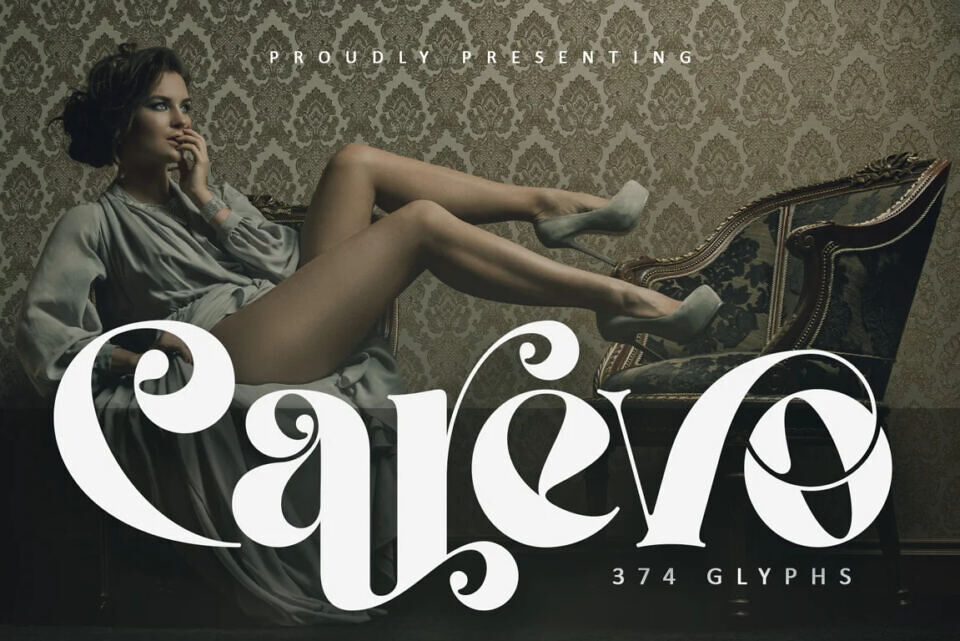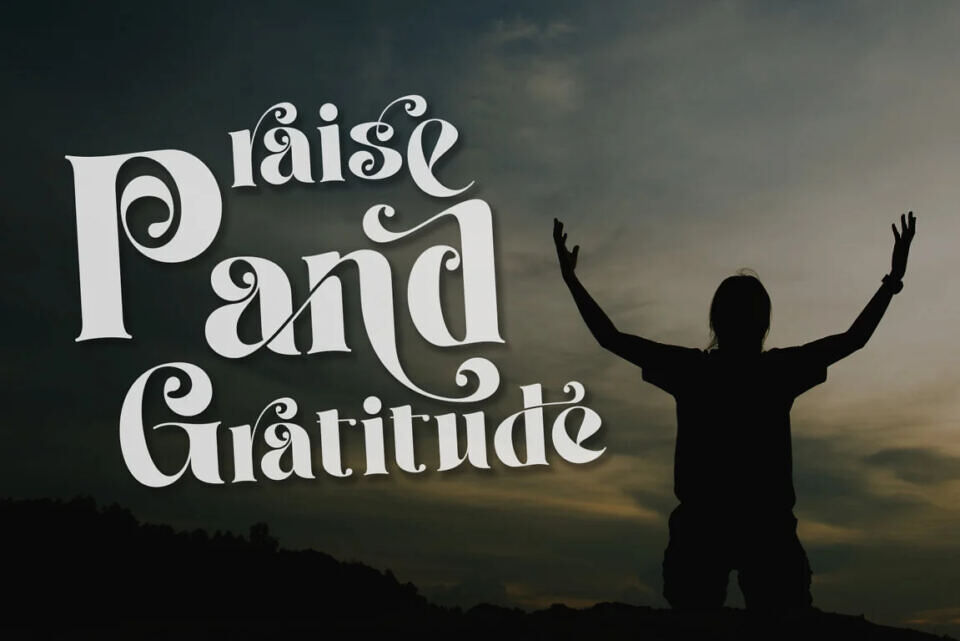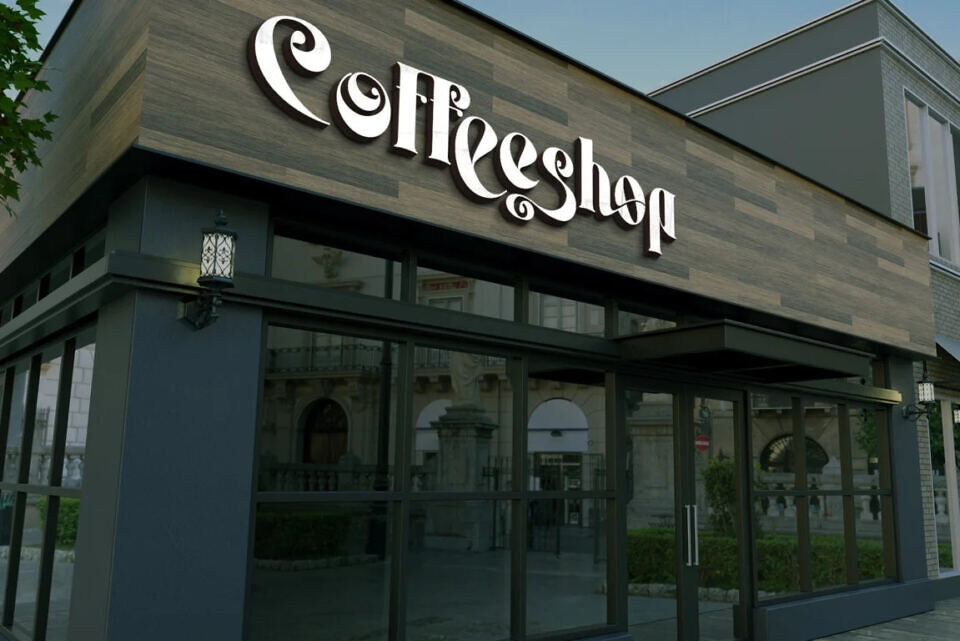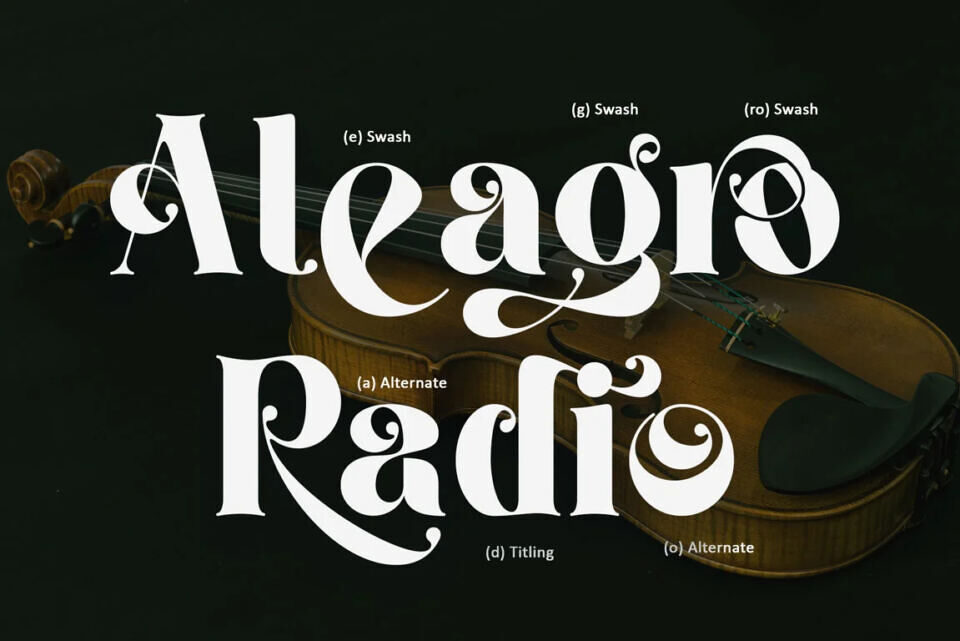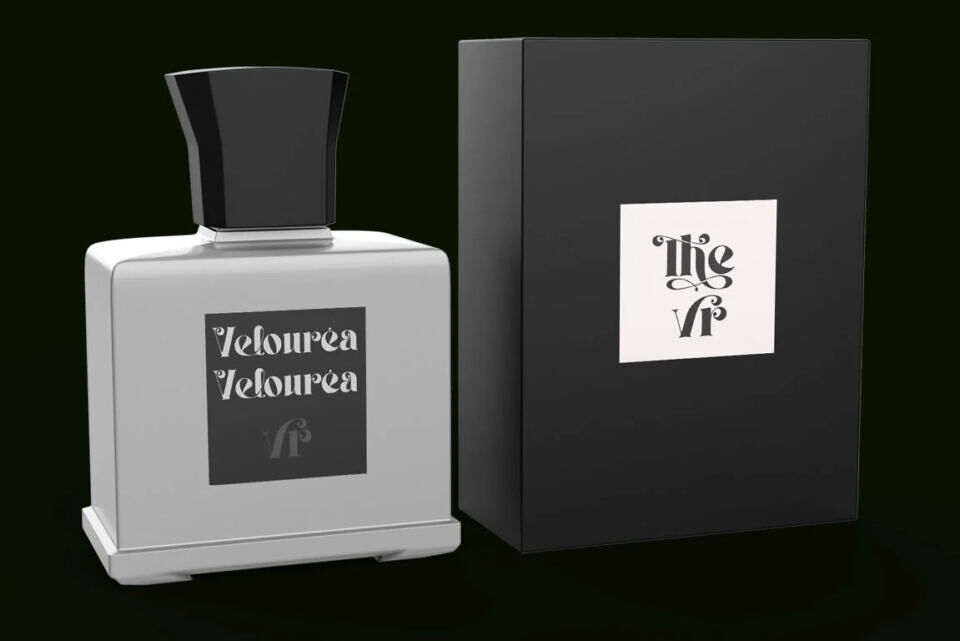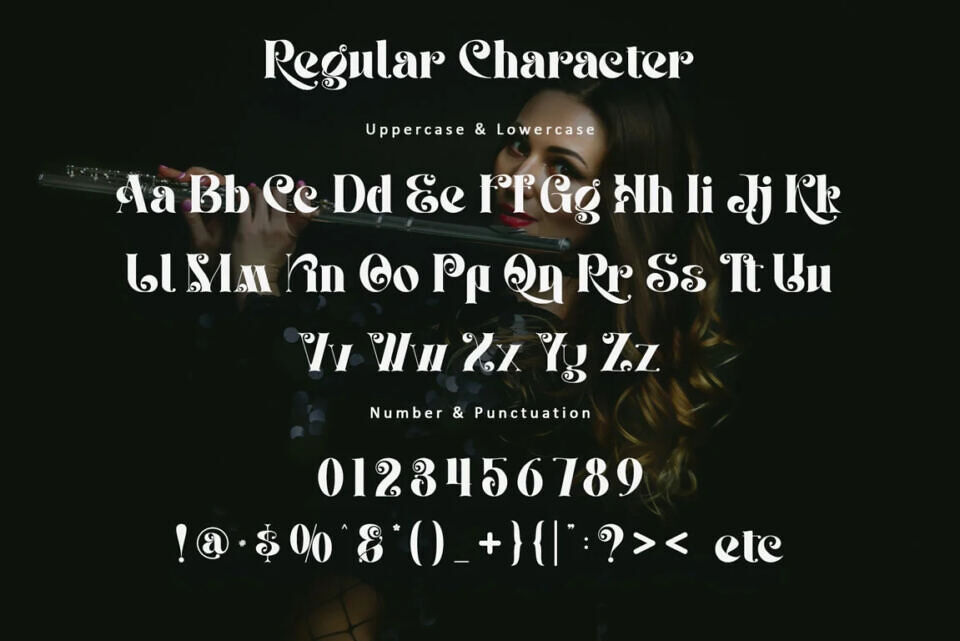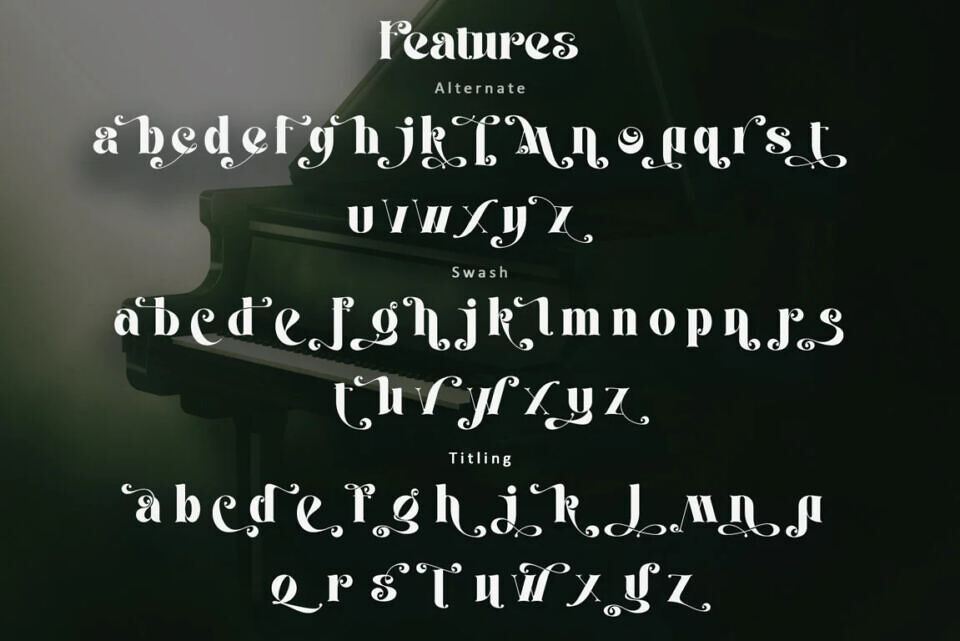
Carevo Font
Unveil the artistry of Carevo, a luxurious display serif that blends bold elegance with playful sophistication. Its sweeping swashes, graceful curves, and intricate details make every letter a statement piece, perfect for branding that demands attention.
Whether gracing a high-end boutique logo, adorning elegant packaging, or elevating editorial layouts, Carevo transforms words into works of art. With an extensive selection of alternates, swashes, ligatures, and multilingual support, this font offers endless creative possibilities.